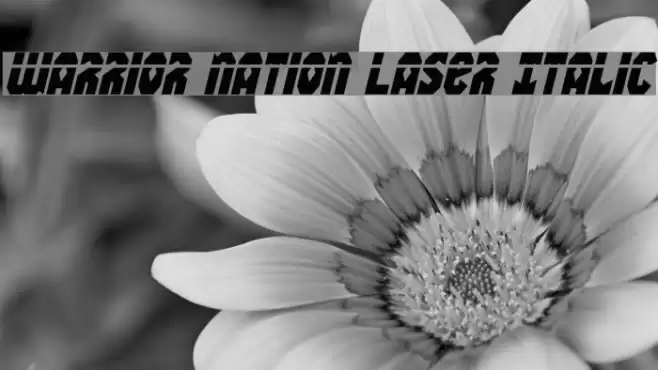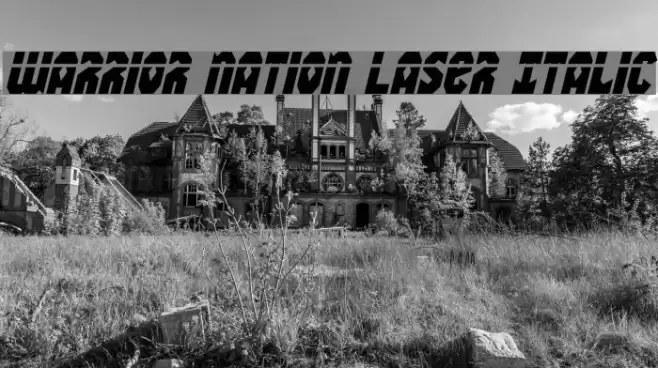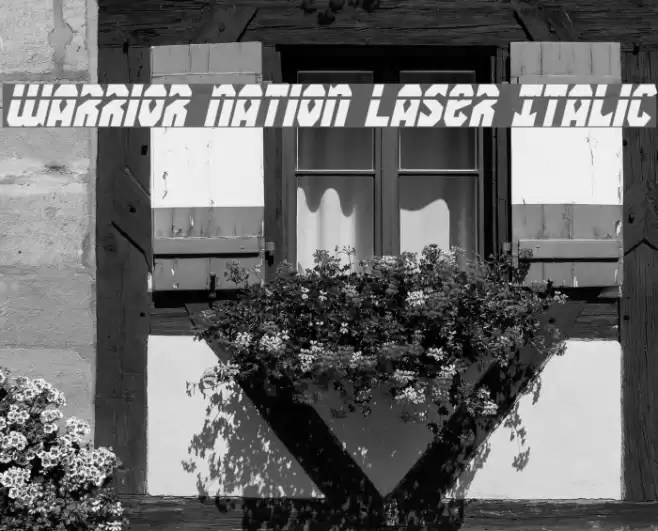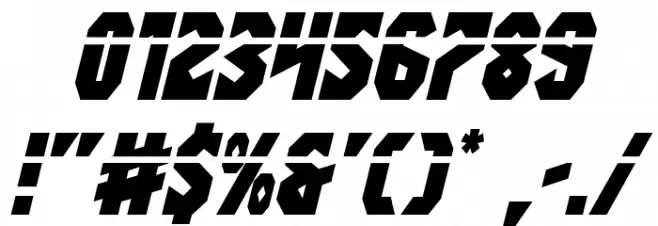
Warrior Nation Laser Italic Font
Warrior Nation Laser Italic Description
This font features a bold, angular design with a futuristic and dynamic appearance. The characters are sharply cut, giving a sense of movement and energy. The italic slant enhances its aggressive and modern look, making it ideal for attention-grabbing designs. The uppercase and lowercase letters maintain a consistent style, with geometric shapes and sharp edges. Numbers and special characters follow the same aesthetic, ensuring uniformity across all text elements. The font's unique style is reminiscent of sci-fi themes and high-tech environments.
A bold, angular, and futuristic italic font with a dynamic and energetic style from Uncategorized fonts.
- Proposed Projects: Ideal for sci-fi themed posters, video game titles, tech branding, and futuristic event flyers.
- Contrast: High
- Overall Style: Futuristic